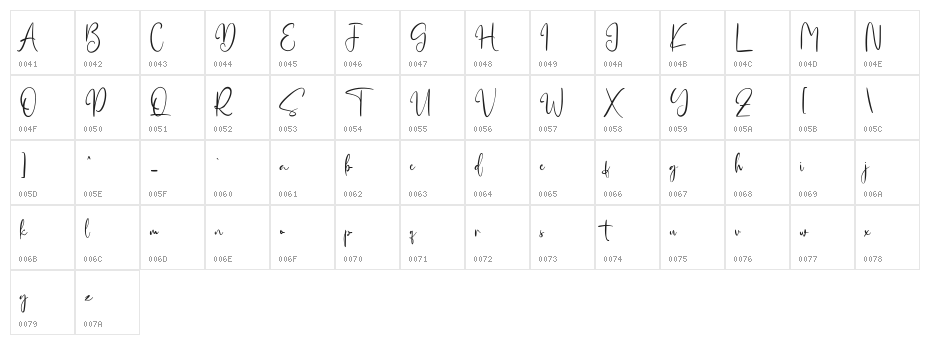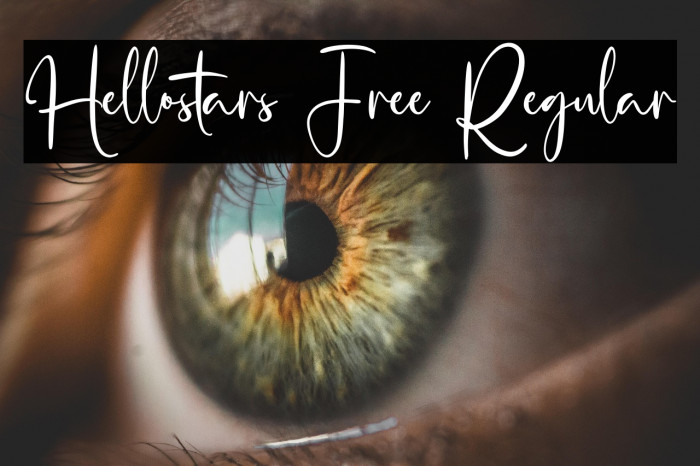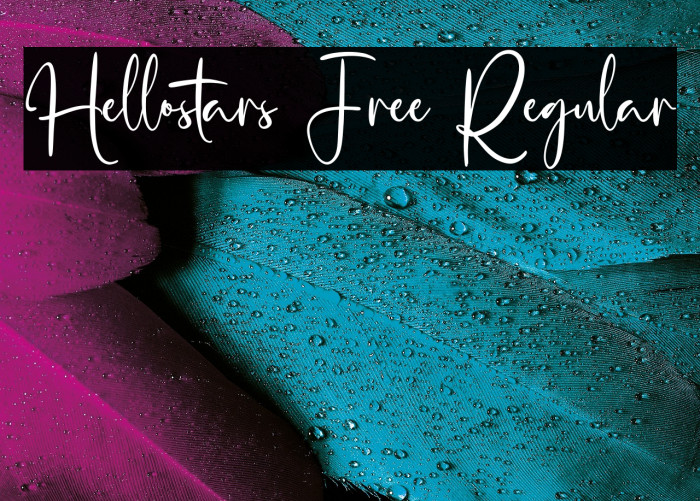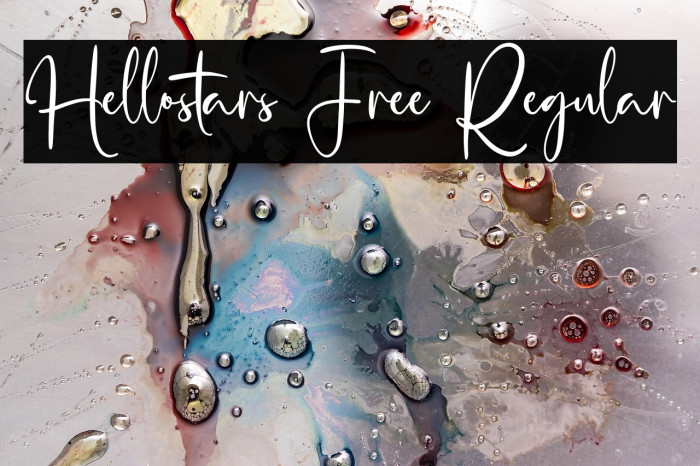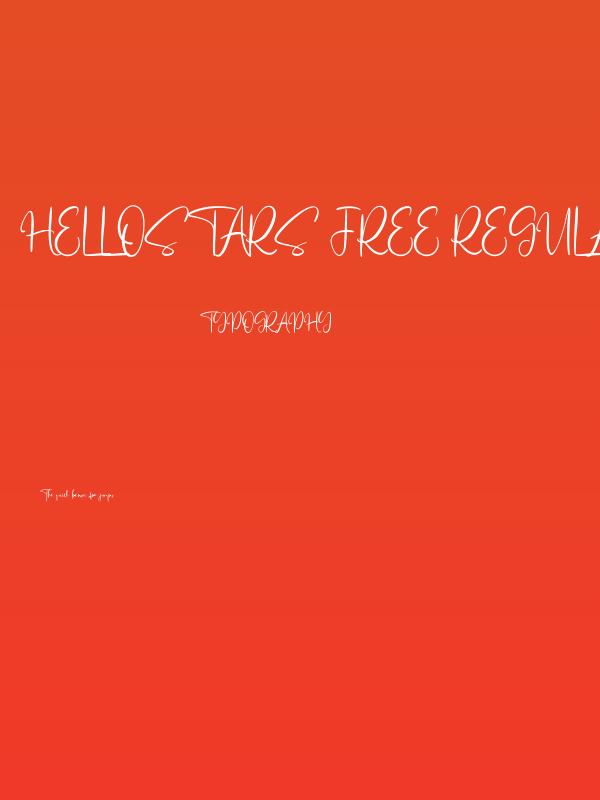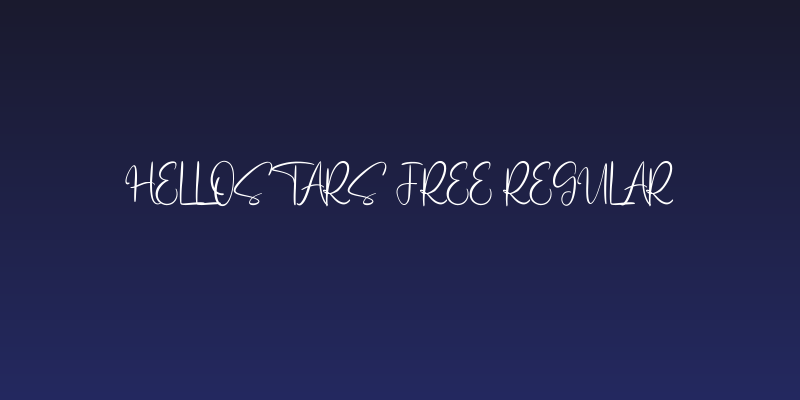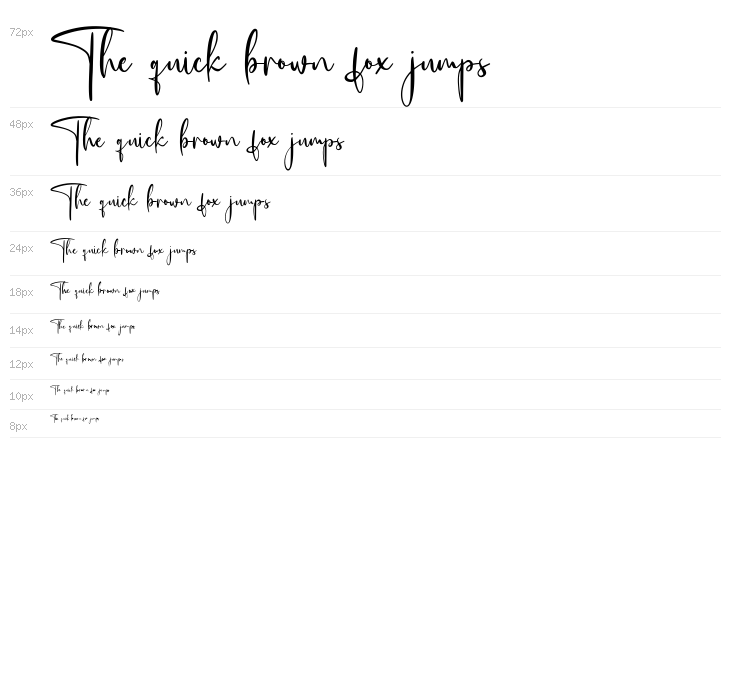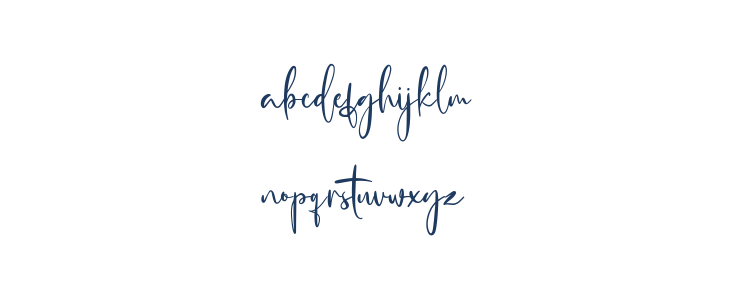
Hellostars Free Regular Font
Hellostars Free Regular Description
This font features a playful and elegant script style, characterized by its flowing, cursive letterforms. The uppercase letters are bold and expressive, with a whimsical touch that adds personality to any text. The lowercase letters maintain a consistent flow, enhancing readability while retaining a stylish flair. The font includes a full set of uppercase and lowercase letters, numerals, and a selection of special characters. Its design is perfect for projects that require a touch of elegance and creativity, such as invitations, greeting cards, and branding materials. The strokes are smooth and connected, giving it a handwritten appearance that is both modern and timeless.
| Proposed Projects | Ideal for invitations, greeting cards, branding, and creative projects. |